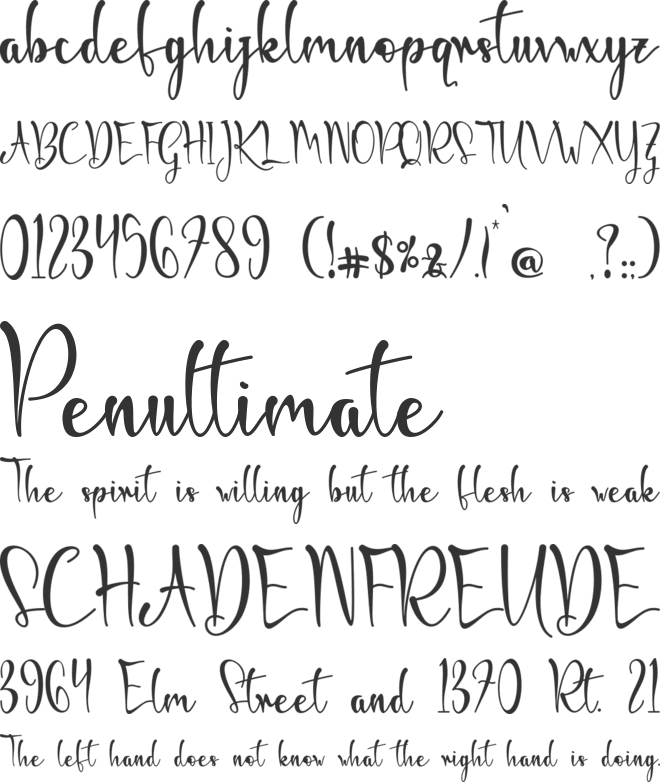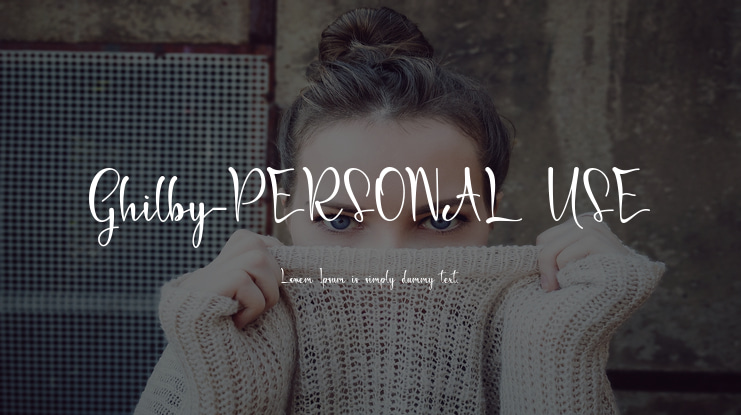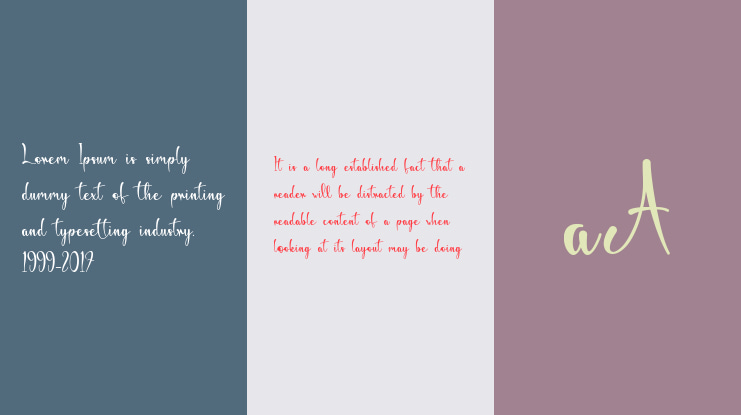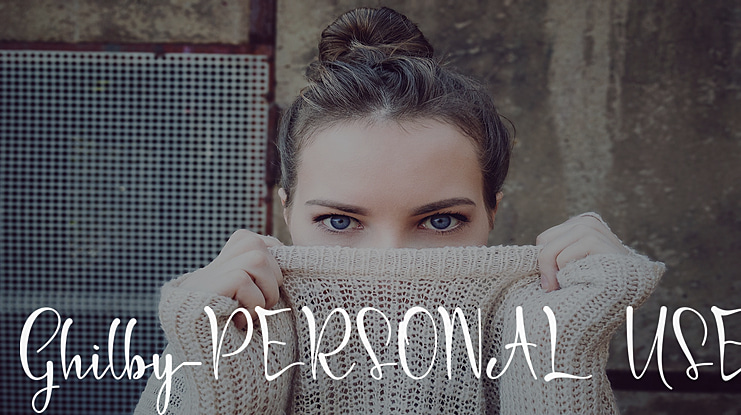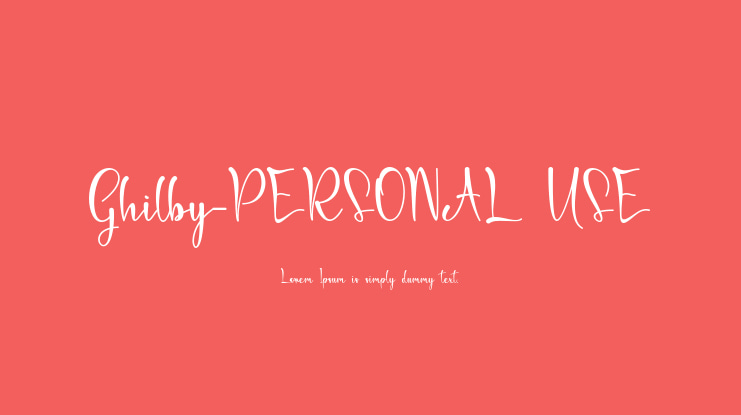
Ghilby-PERSONAL USE Font
this font is a romantic and festive handwritten font. Its natural and unique style makes it incredibly fitting to a large pool of designs.